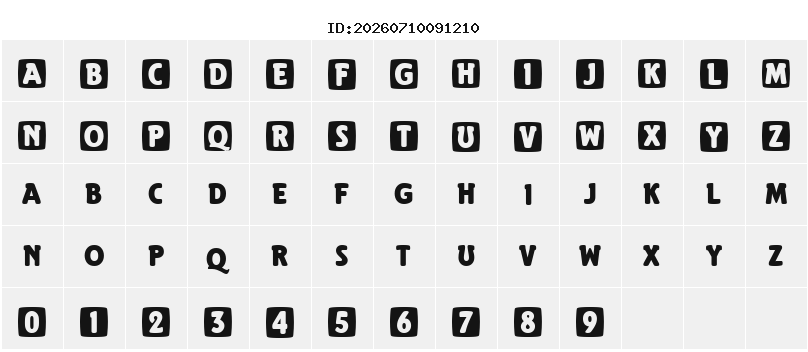
EitokuIniD Preview
• Font Name: EitokuIniD
• Full Font Name: EitokuIniD
• PostScript Name: EitokuIniD
About EitokuIniD.ttf
EitokuIniD.ttf is a modern, elegant sans-serif font designed for ultimate readability and visual harmony. Perfect for branding, headlines, web design, and print materials.